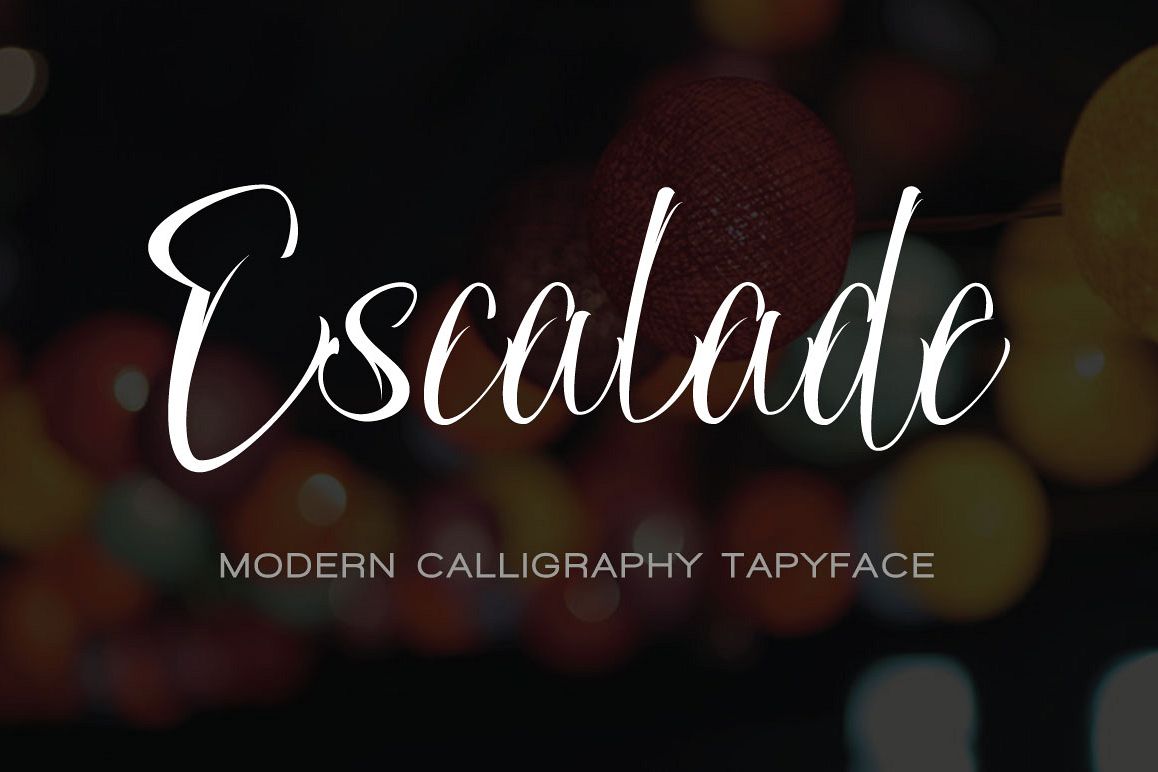
ESCALADE modern calligraphy
Escalade is an awesome modern calligraphy. Suitable for wedding invitations, greeting cards, design of water-based paints, correspondence, and a variety of other purposes.
Number
Punctuations
Ligatures